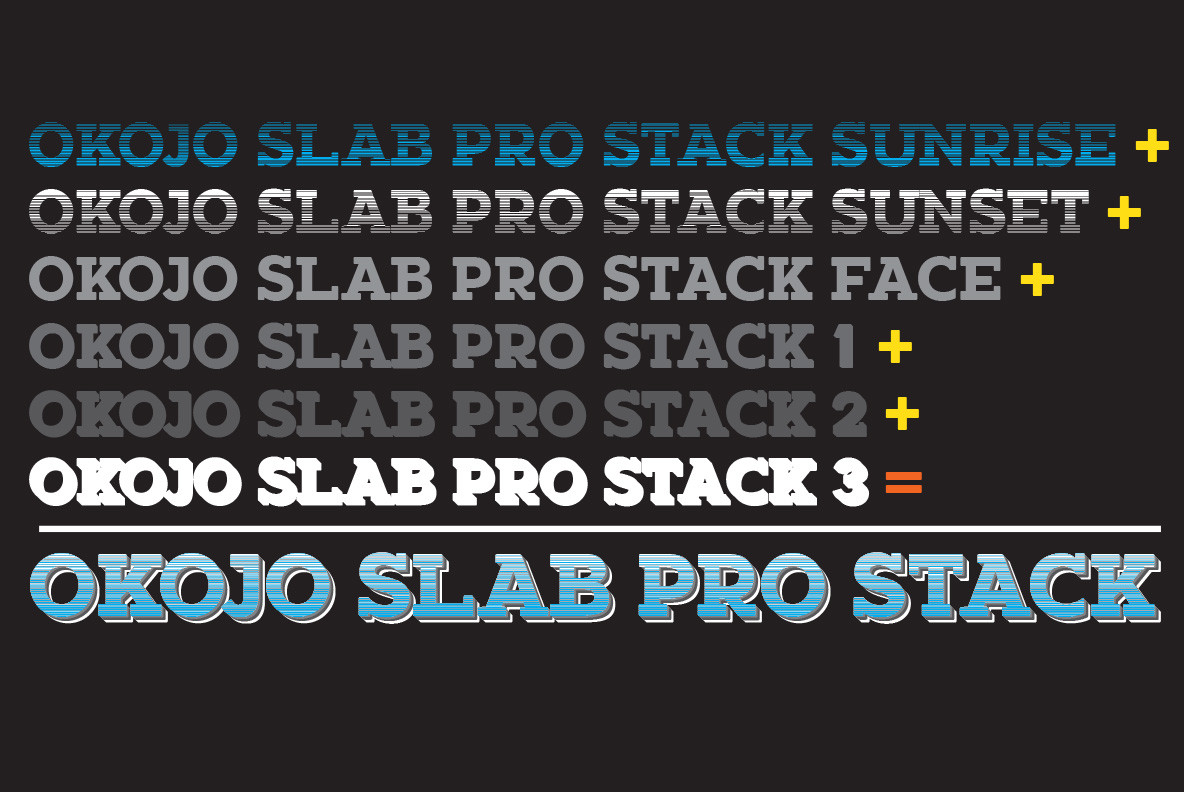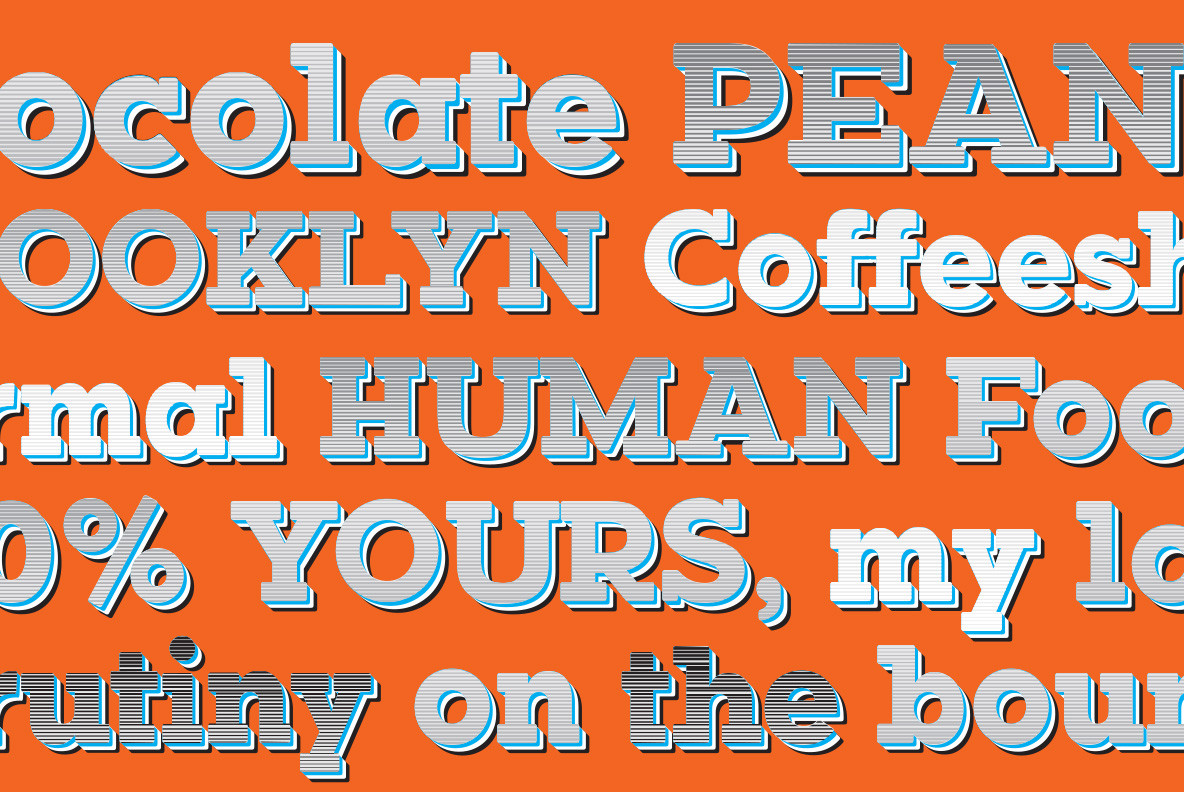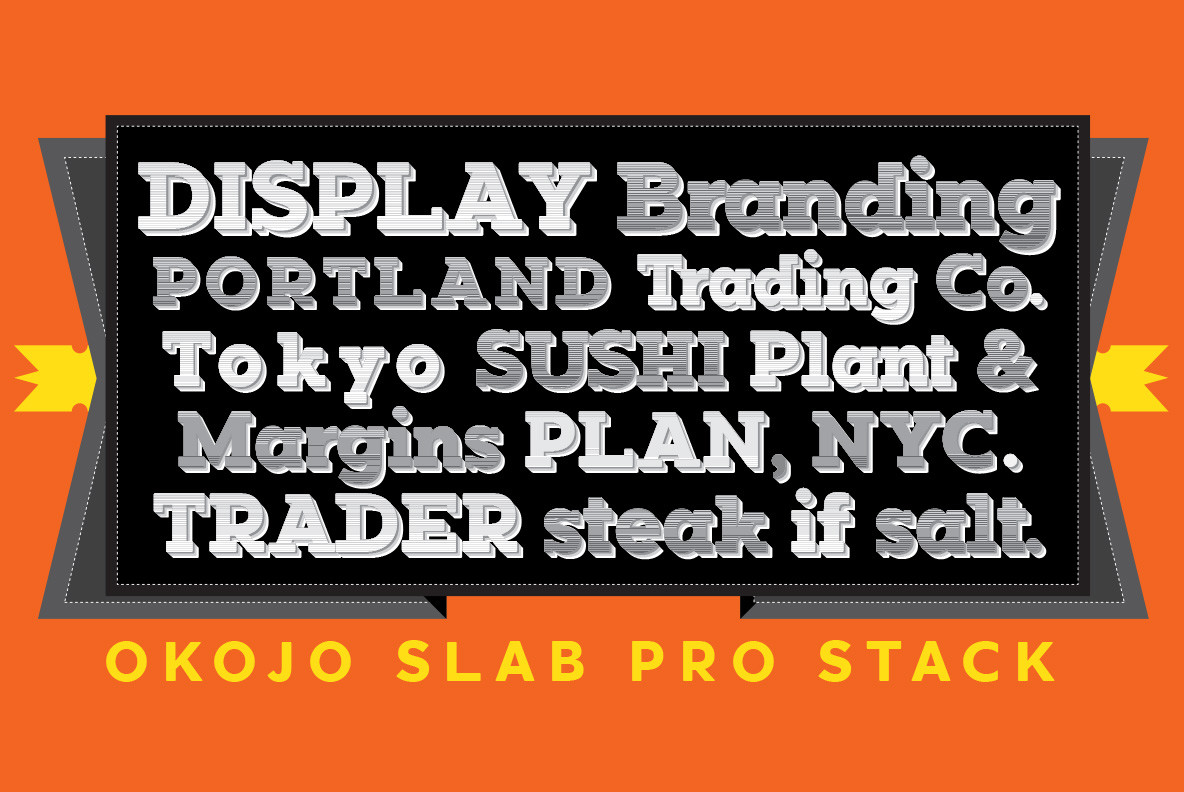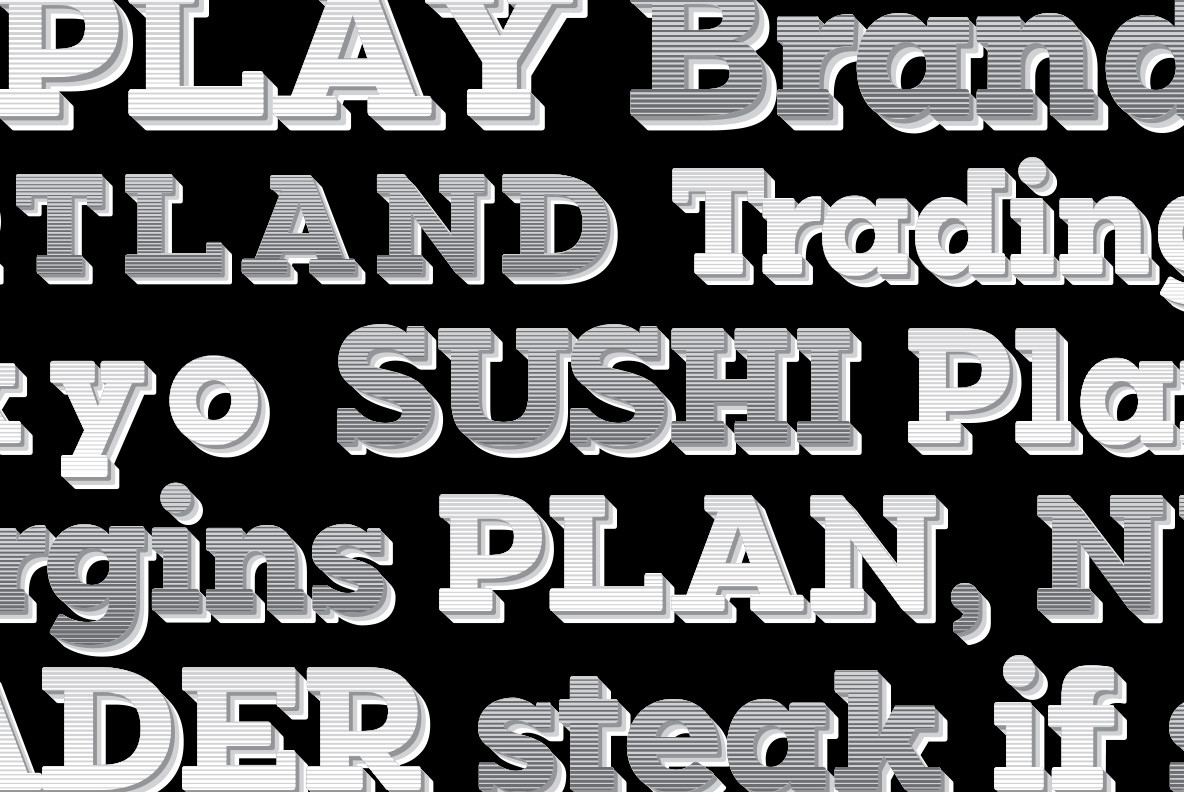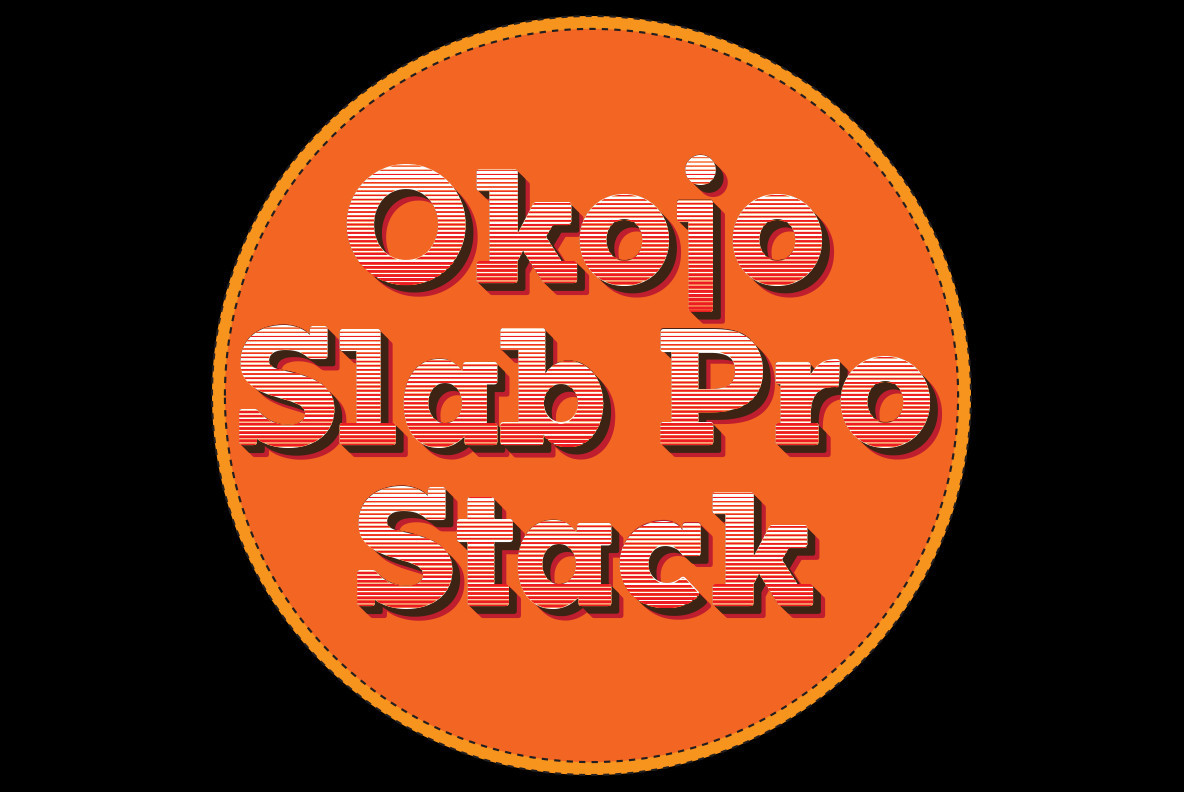
Okojo Pro Slab Stack Font
Once upon a time, a young man with scribbles on his face rapped the words, "Stacks on stacks". Prophetic. Engaging. And more than anything―*interesting*!
OkojoPro Slab Stack is a family of six stackable typefaces: three layers of extrusion, a solid face, and two ornamental stepped layers―Sunset and Sunrise.
You can use the different type faces together to create ornamental headline typography with thousands of different possible combinations. Bonus: The face layer is a rugged bold typeface that has been spaced and kerned for text typesetting.
Combine this family with the Okojo Pro Family of typefaces to create exquisite, eye-catching layouts for print or screen.
Okojo Pro Slab Stack: Stack 'em up!